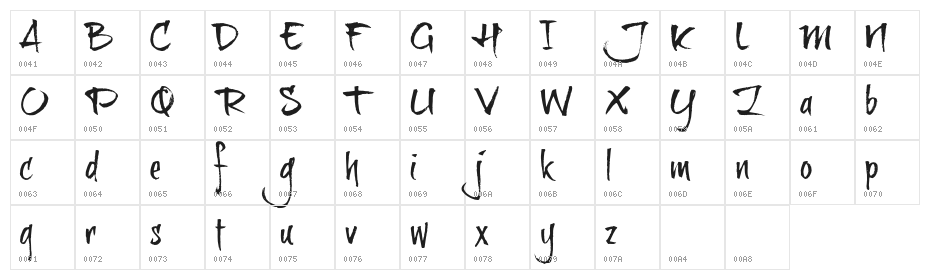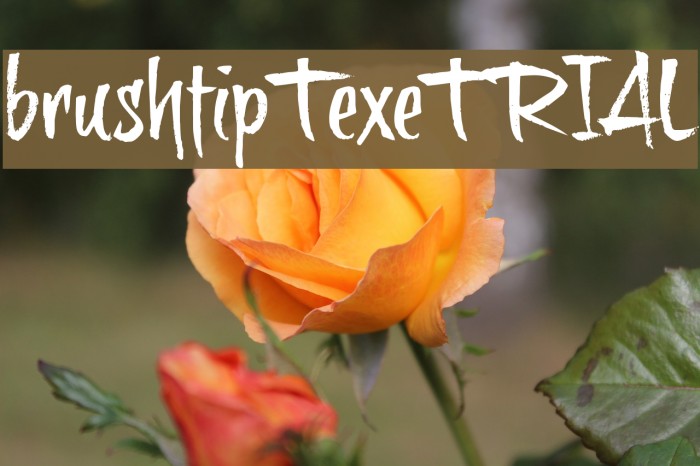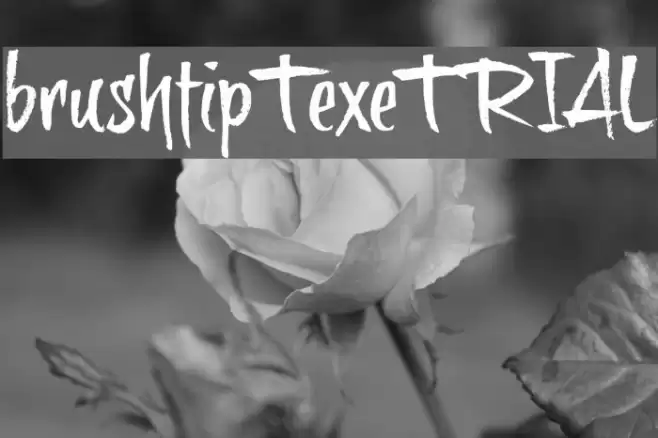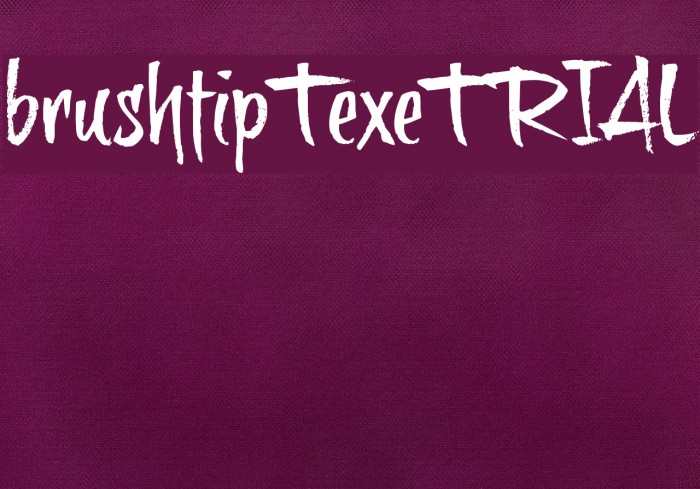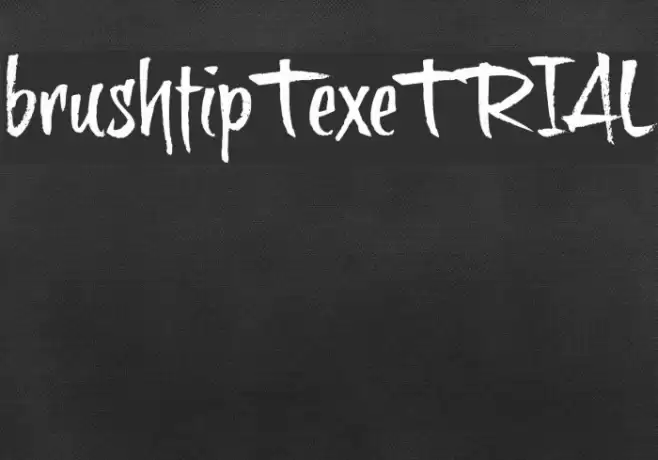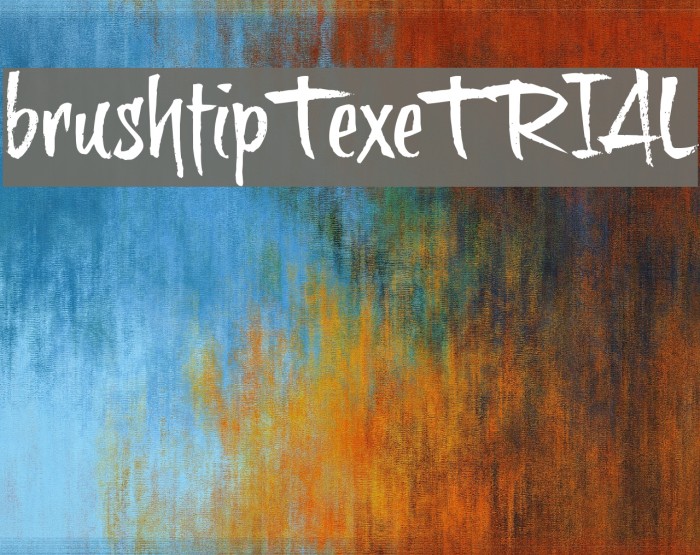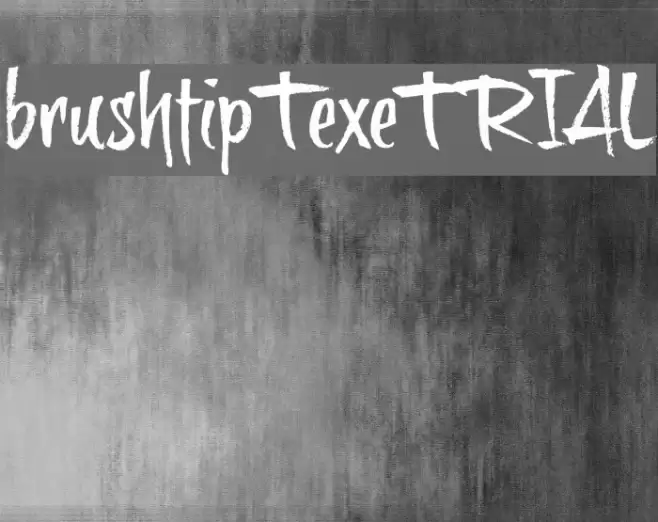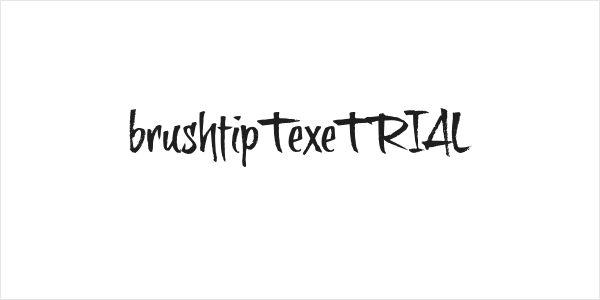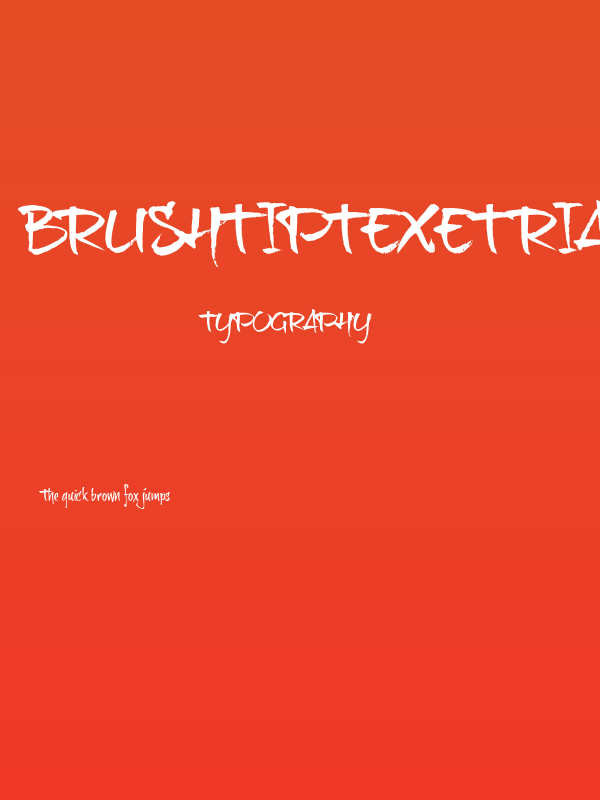
brushtipTexeTRIAL Font
brushtipTexeTRIAL Description
This font exudes a dynamic and expressive style, reminiscent of brush strokes with a raw, artistic flair. The characters are bold and slightly irregular, giving them a handcrafted appearance. The uppercase and lowercase letters maintain a consistent flow, with some letters featuring elongated strokes that add to the overall energetic feel. The font lacks traditional serifs, emphasizing its modern and casual aesthetic. It's perfect for projects that require a personal touch or a creative edge, such as posters, artistic branding, or social media graphics. The absence of special characters suggests a focus on alphabetic and numeric expressions.
| Proposed Projects | Ideal for artistic branding, posters, social media graphics, and creative projects. |